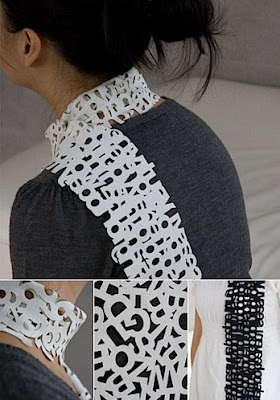
These ultrasuede scarves from Little Factory are laser-cut with either upper-case, lower-case, or numeric characters in a close pattern. Although I am not convinced they would hold up to a Minnesota winter. -Erik